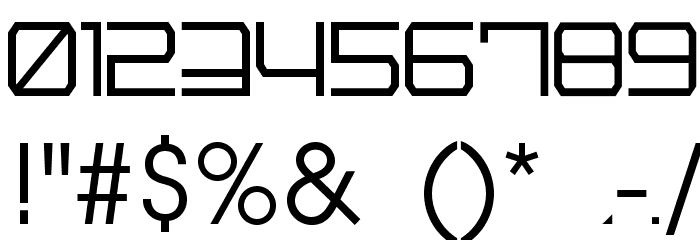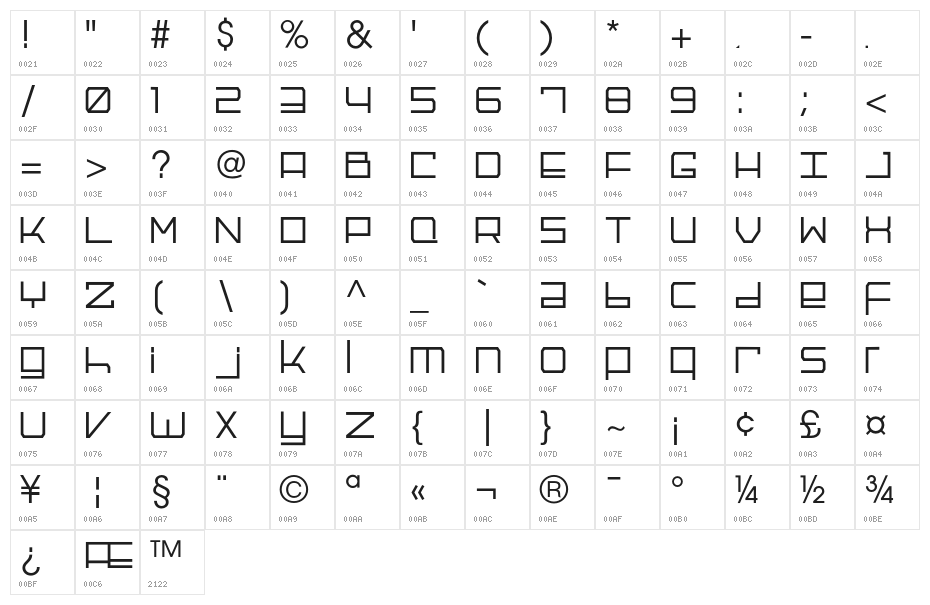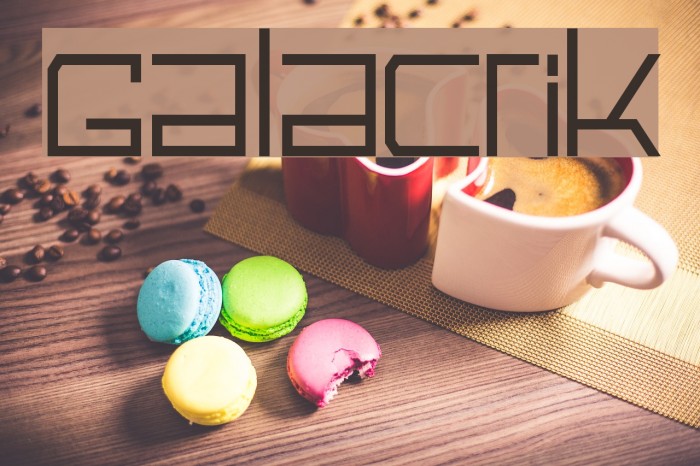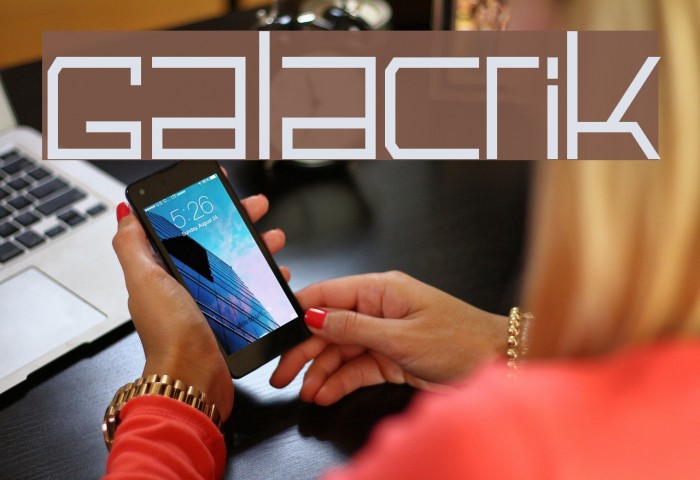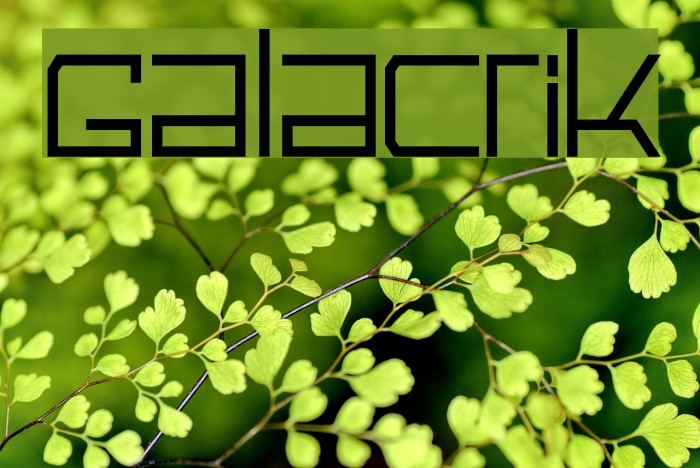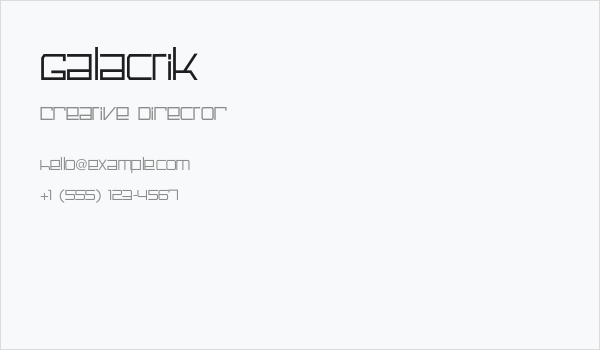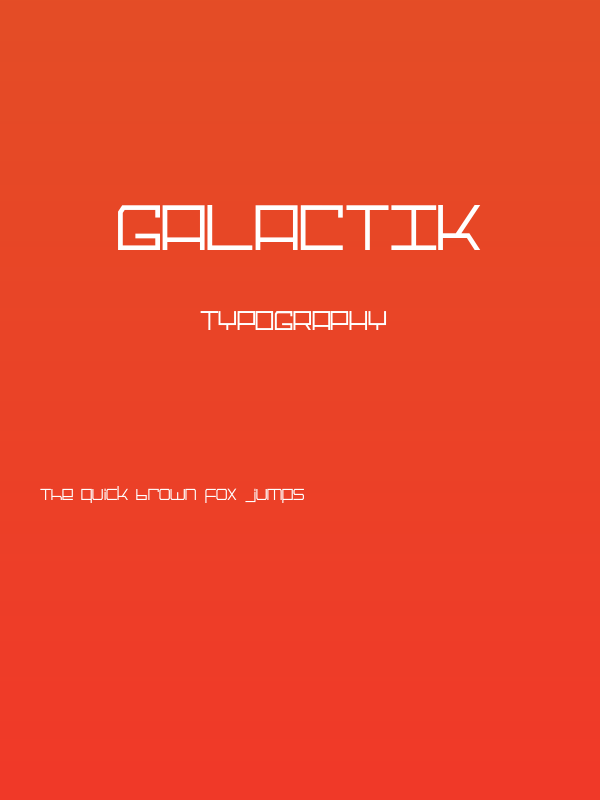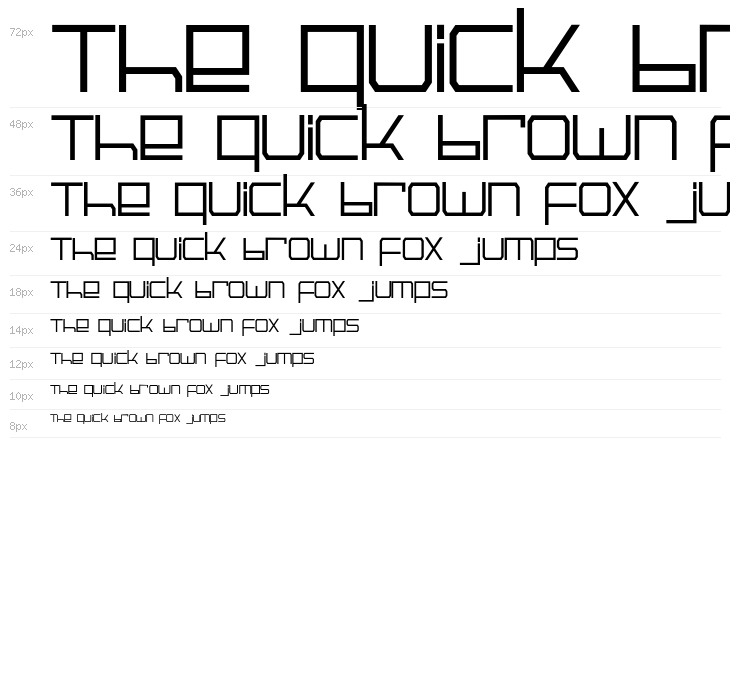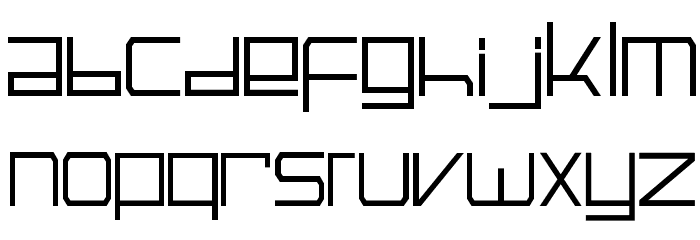
Galactik Font
Galactik Description
This font features a futuristic and geometric design, characterized by its angular and sharp edges. The uppercase and lowercase letters maintain a consistent height, giving it a uniform appearance. The numerals and special characters follow the same design principles, ensuring cohesion across all elements. The font's structure is clean and minimalistic, making it suitable for modern and tech-oriented projects. Its unique style is both eye-catching and readable, making it versatile for various applications.
| Proposed Projects | Ideal for technology branding, sci-fi themed designs, video game interfaces, and modern advertising. |